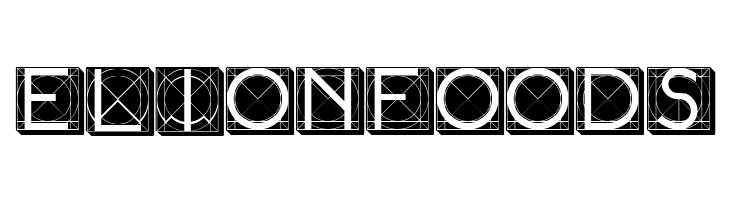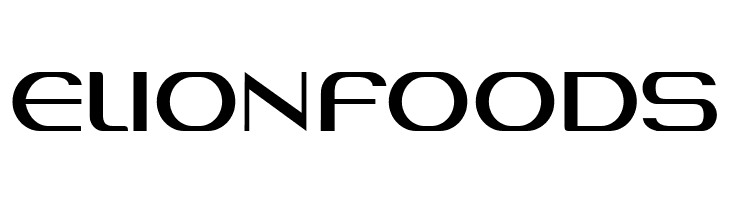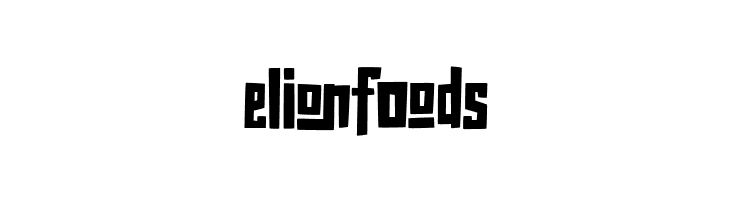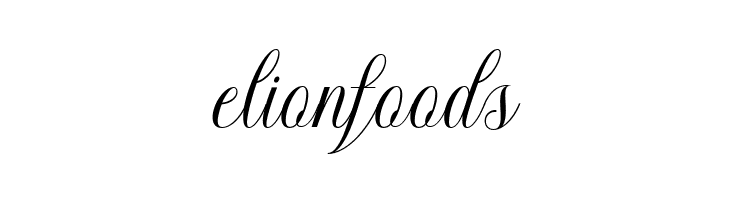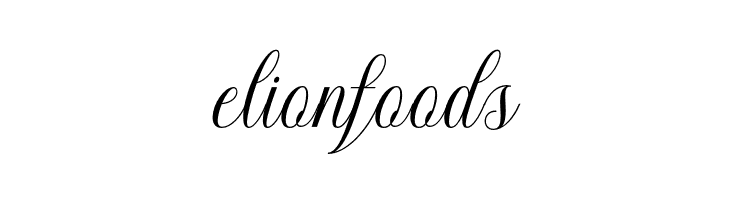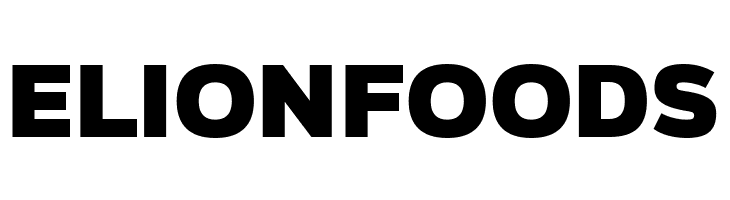
A clean, modern sans-serif font with semi-bold weight and balanced design.
A clean, modern sans-serif font with consistent stroke width and high legibility.
A modern, geometric font with bold, angular characters.
A bold, modern sans-serif font with thick, uniform strokes.
An elegant script font with flowing, interconnected letters and high contrast strokes.
An elegant script font with fluid, cursive strokes and refined flourishes.
A geometric, grid-based font with a modern and technical aesthetic.
A geometric, grid-like font with intricate, modern design elements.
A bold, geometric font with high contrast and a modern, edgy style.
A bold, jagged font with a claw-like, aggressive style.